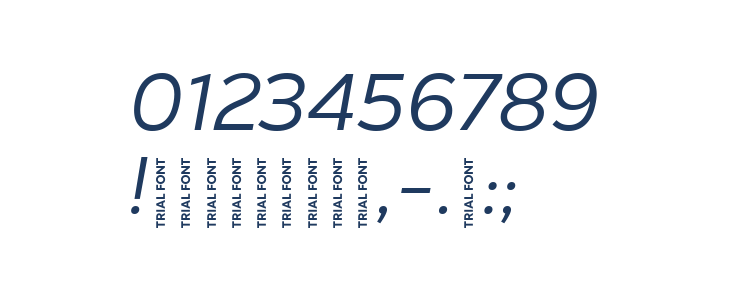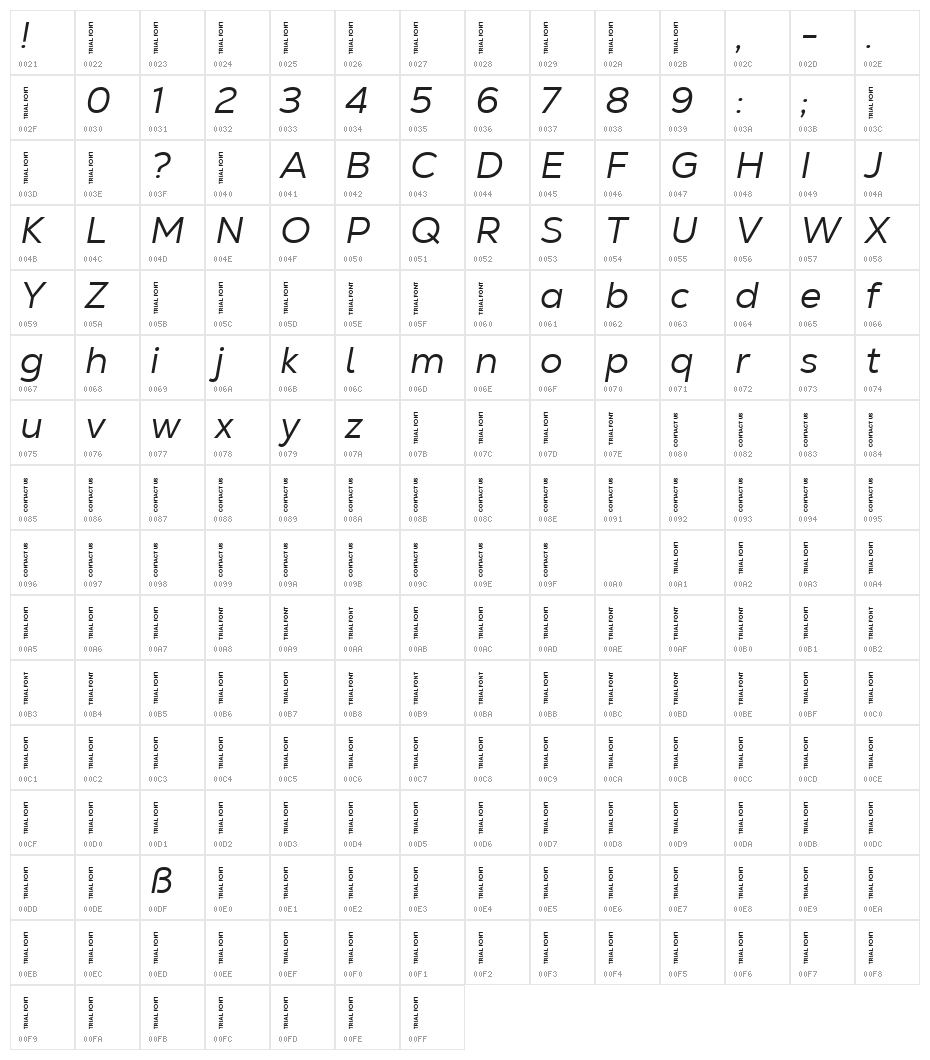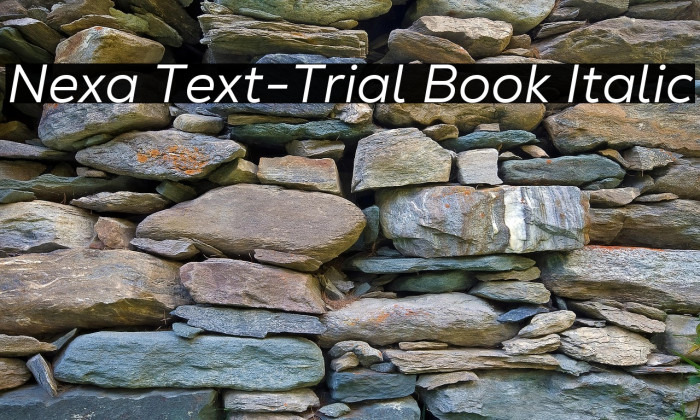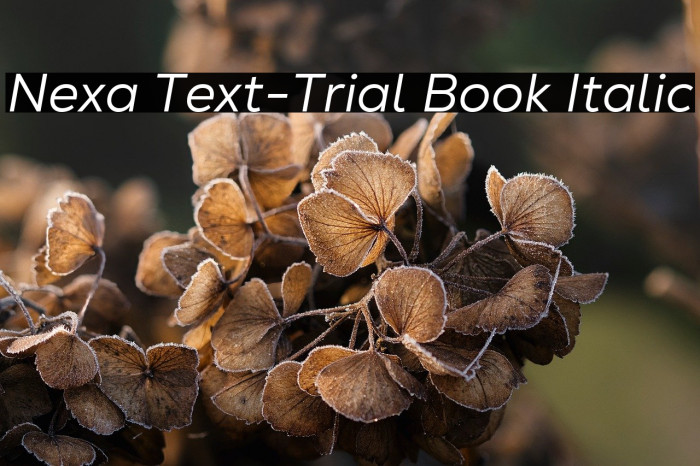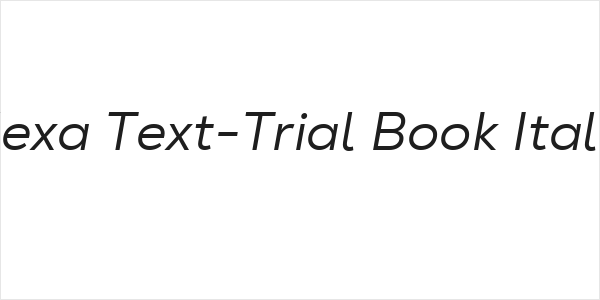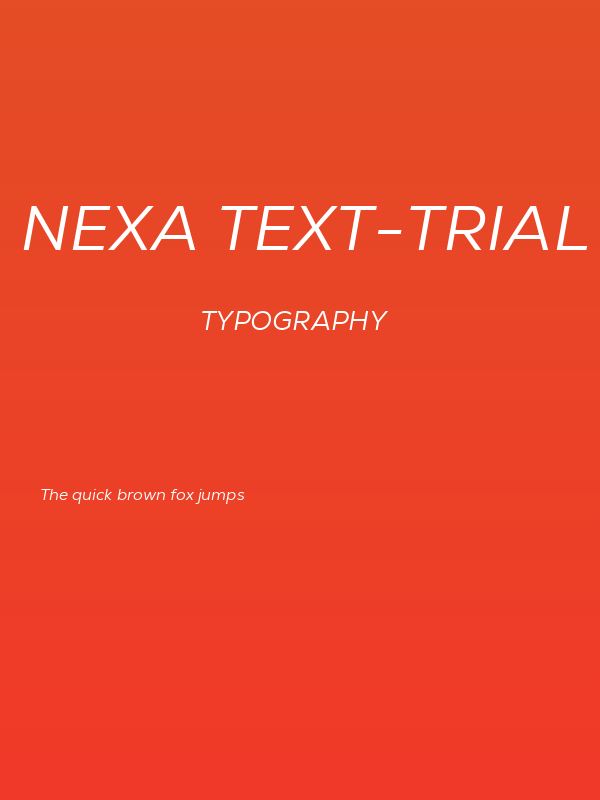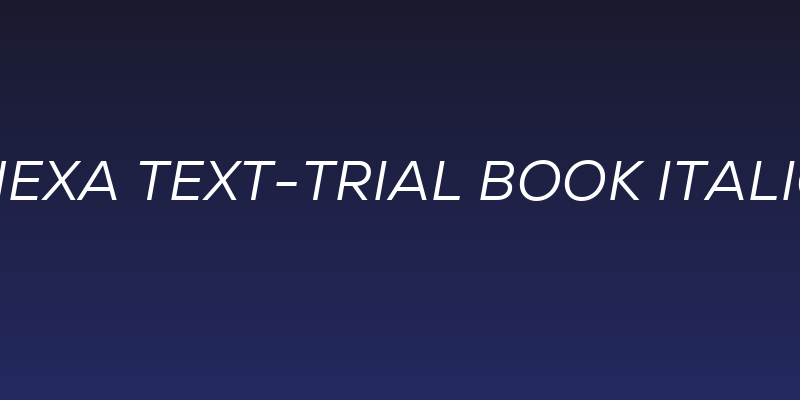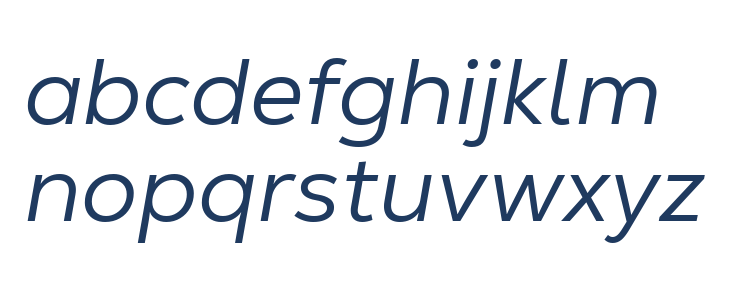
Nexa Text-Trial Book Italic Font
Nexa Text-Trial Book Italic Description
This font features a clean and modern sans-serif style with a slight italic slant, giving it a dynamic and contemporary feel. The characters are well-proportioned with smooth curves and a consistent stroke width, making it highly legible across various sizes. The uppercase and lowercase letters maintain a harmonious balance, while the numerals are clear and distinct. The special characters are designed with the same attention to detail, ensuring uniformity throughout. Its sleek appearance makes it suitable for a wide range of applications, from digital interfaces to print media.